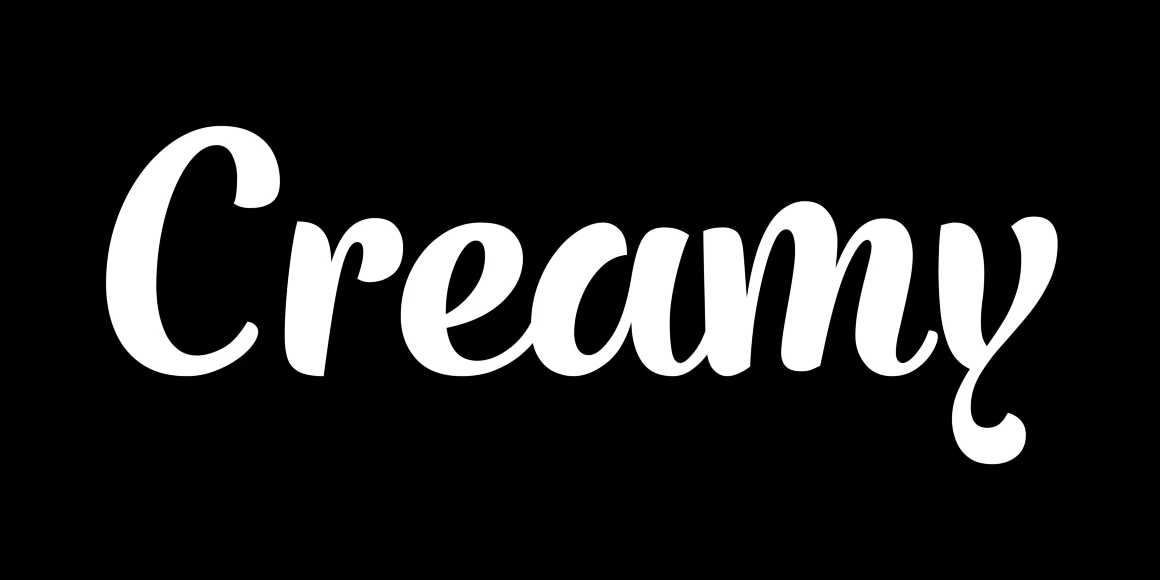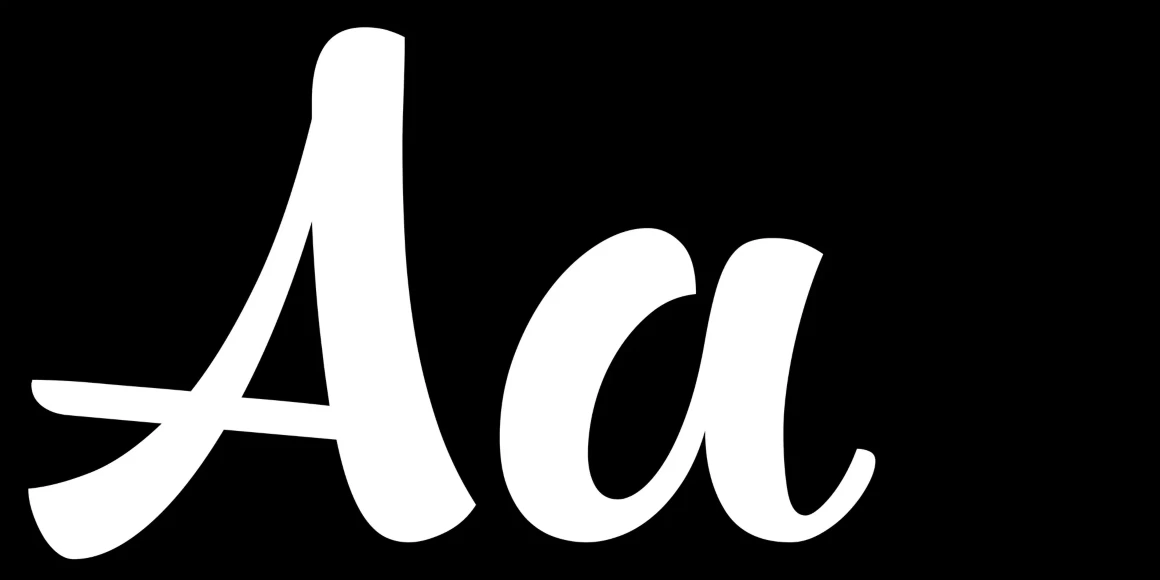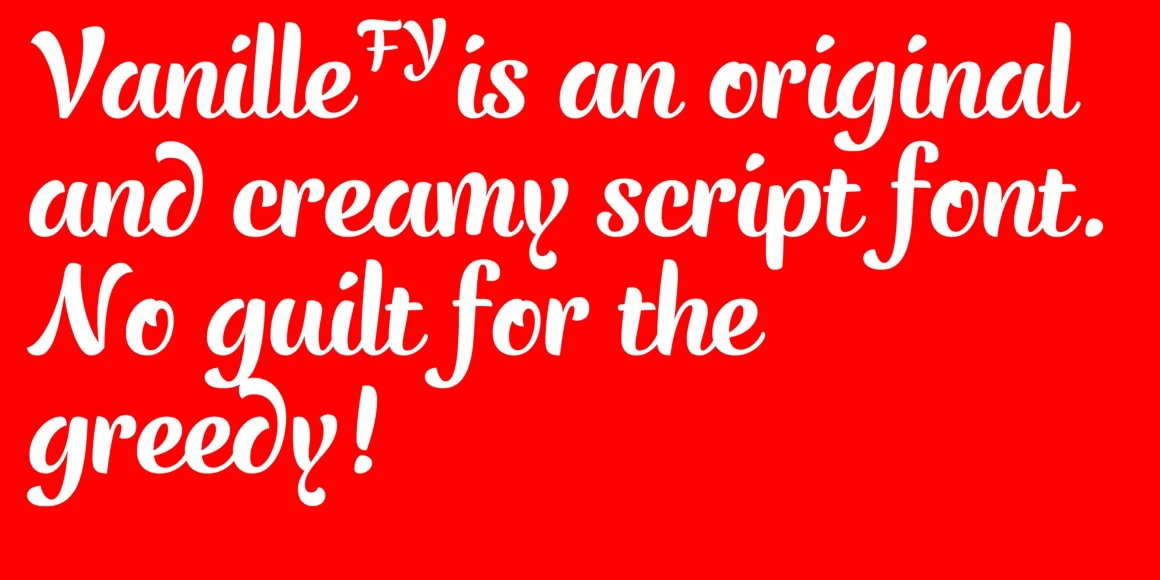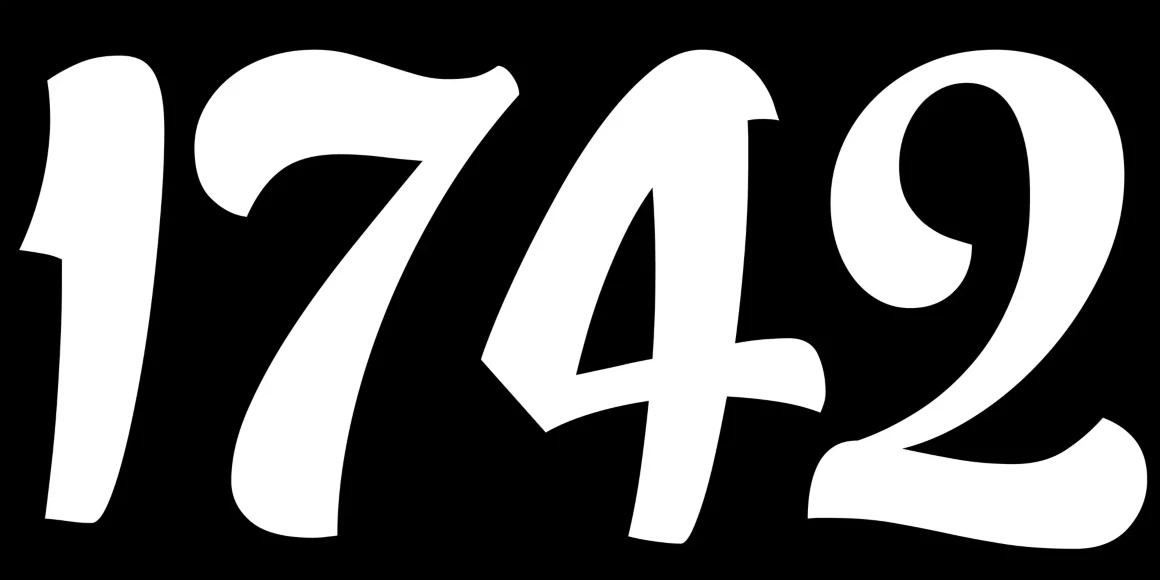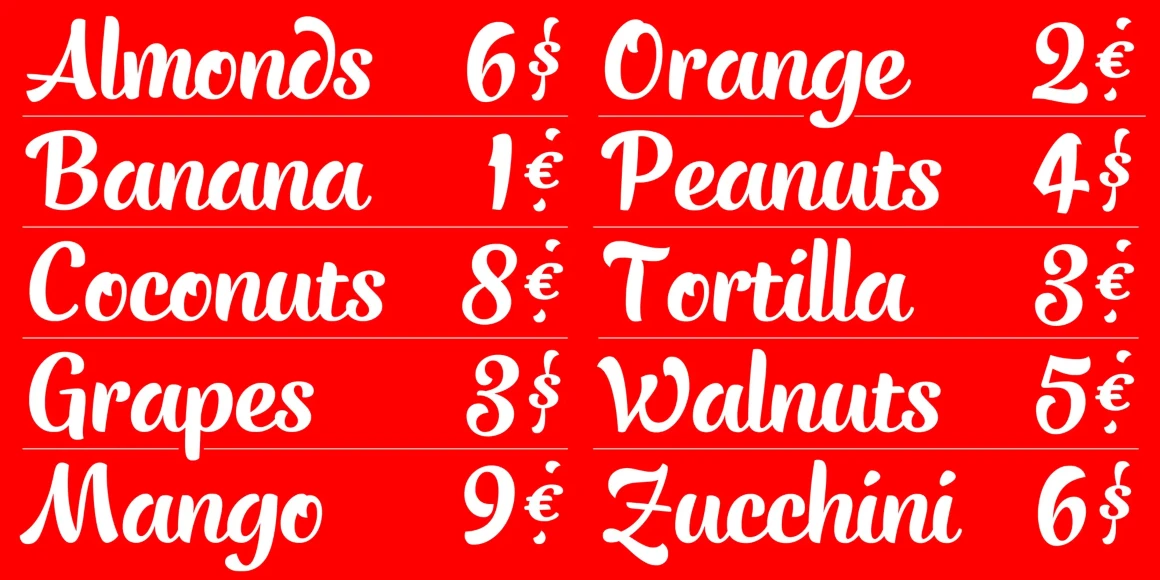
Vanille
Vanille FY is a casual upright script full of bounce and charm, blending the smooth flow of brush and ink with the snappy rhythm of hand-lettered sign painting. Playfully refined, its lettershapes dance with an upbeat, crafted energy perfect for children’s book covers, event posters, party invitations, and food packaging. Vanille FY brings lively character to any design, with delight in every stroke.